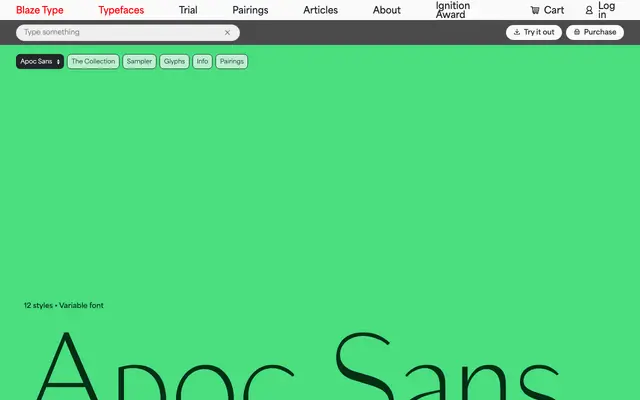
Apoc Sans
A sharp display sans with six weights and variable font support, extending the Apoc family into sans-serif territory with Latin, Cyrillic and Greek coverage.
Part of Blaze Type's Apoc family, this sans branch brings the same edged, expressive character to a design spanning Hairline through Dark across 12 styles. The variable font allows fluid interpolation across the weight axis, and the character set covers Latin Extended, Cyrillic and Greek. Cyrillic was contributed by Ilya Ruderman of Tomorrow Type and Yury Ostromentsky of CSTM Fonts.
A sharp, expressive sans-serif with high-contrast letterforms and strong editorial character, positioned explicitly for bold display and standout heading use rather than text setting.